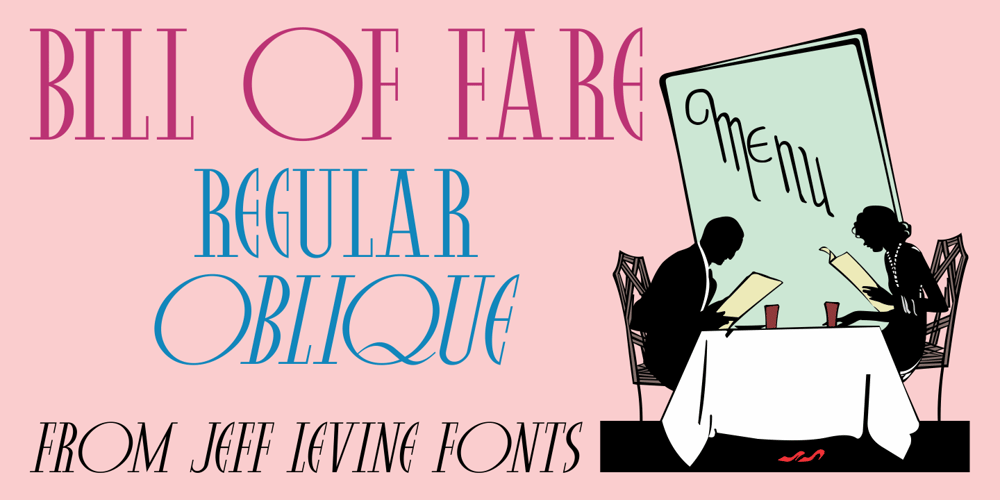
Bill of Fare JNL Font Family was designed by Jeff Levine and published by Jeff Levine. Bill of Fare JNL contains 2 styles and family package options. A 1942 menu cover for the restaurant at the Biltmore Hotel in Los Angeles features its name in a stylized Art Deco serif design. This is has been turned into the digital typeface Bill of Fare JNL, and is available in both regular and oblique versions.